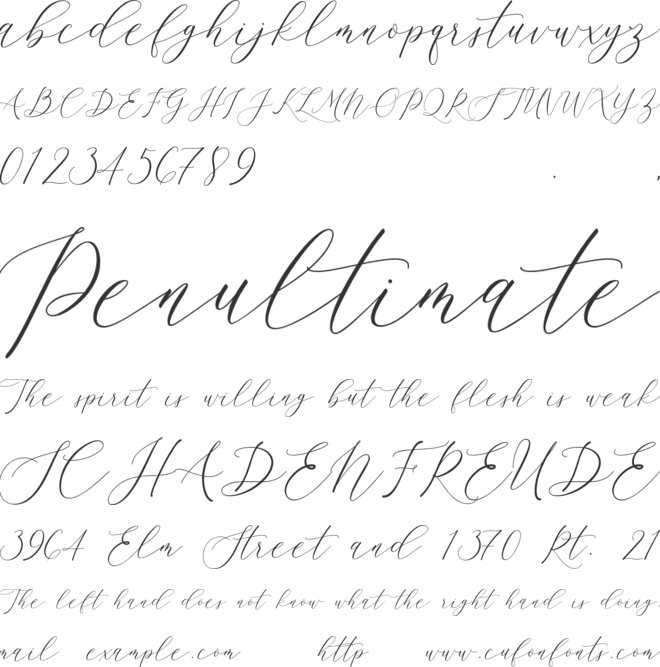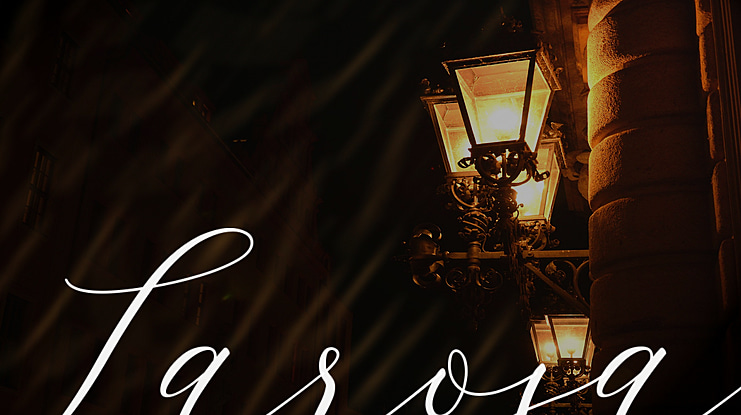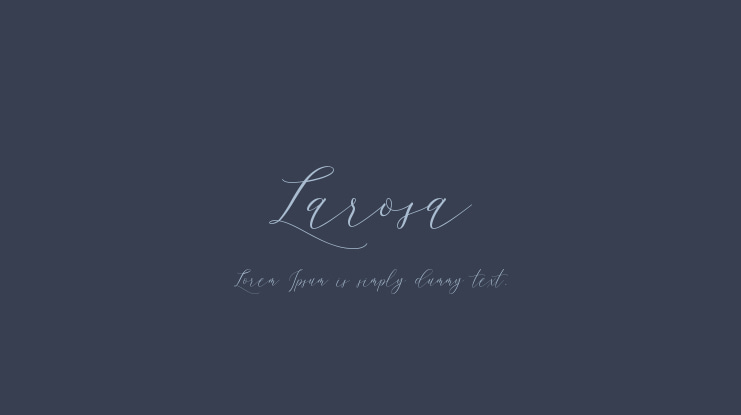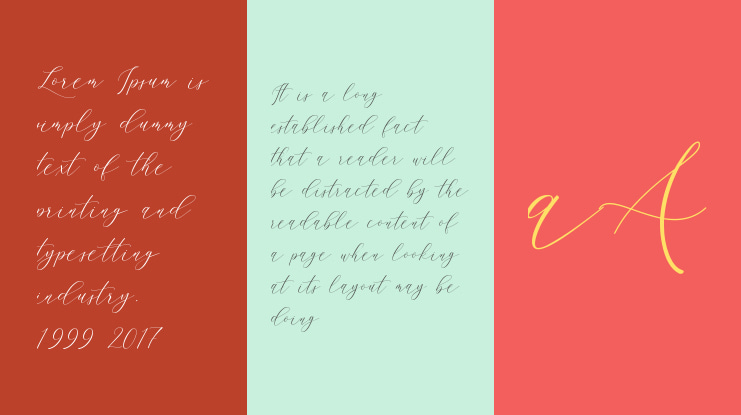
Larosa Font
Larosa is an elegant and luxurious modern font. made especially for those of you who are making logo designs, wedding supplies, branding, beauty packaging, etc.Create your clean, elegant, modern design with Larosa.
Larosa is built with the OpenType feature and includes titling and swash, alternate characters 01-06 for lowercase letters, numbers, punctuation, alternatives, and also supports other languages.